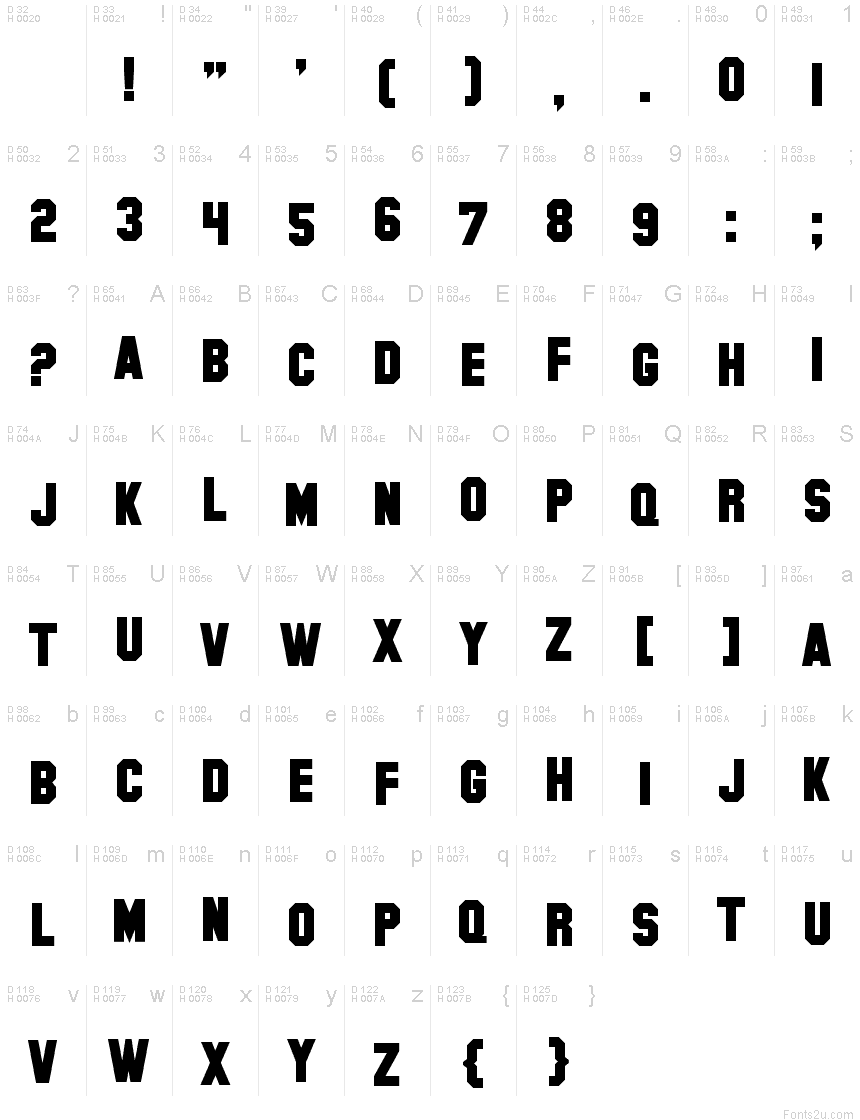
Hollywood Hills Bold
Hollywood Hills Bold font by Shywedge is a free old-school display typeface. Its chunky, squared-off letters feel like they were cut from heavy wood blocks, with crisp edges and a stadium-style presence that’s hard to miss. The rhythm is sturdy and upright, making every word look like it belongs on a marquee or across the back of a vintage team jacket.
Using Hollywood Hills Bold, your titles instantly take on that classic, larger-than-life Hollywood and sports poster energy. This free font shines on event flyers, sports branding, retro movie graphics, YouTube thumbnails, game logos, and bold merch prints. Set it big with slightly tighter letterspacing for maximum impact, and pair it with a simple sans serif for body text to keep the message loud, clear, and easy to read.